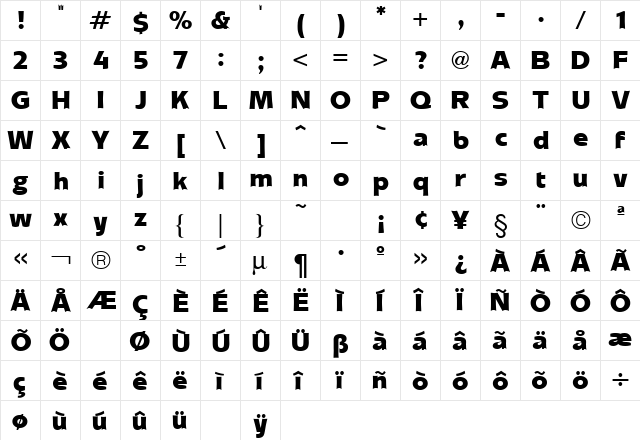
Mixage Regular
Design Context for Mixage Typeface
Mixage offers clean, dependable letterforms without strong stylistic allegiance, making it a practical choice for designers who need flexibility.
Pro Tip: Pair Mixage with a font of contrasting weight or personality to build a more expressive typographic hierarchy.